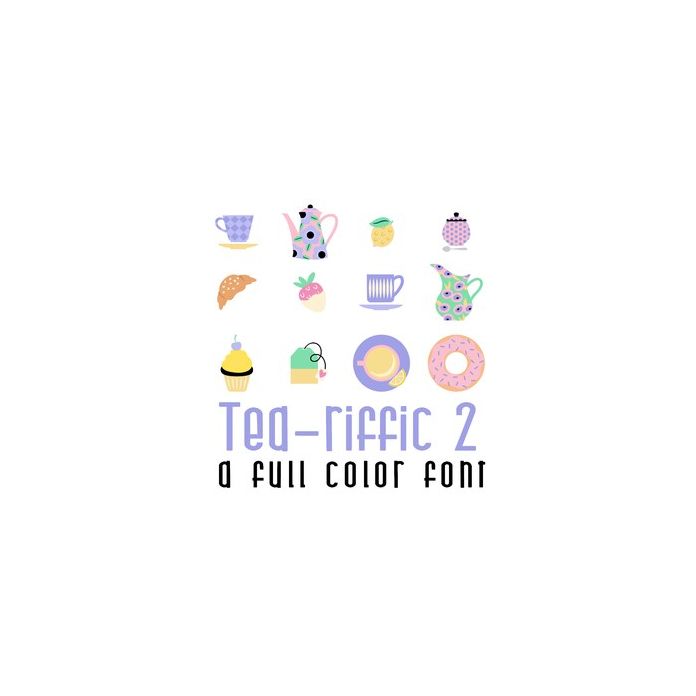
This adorable full-color doodlebat font features 26 beautiful tea party items. Perfect for cards, crafts, gifts, decor, scrapbook pages, planner stickers, and more!